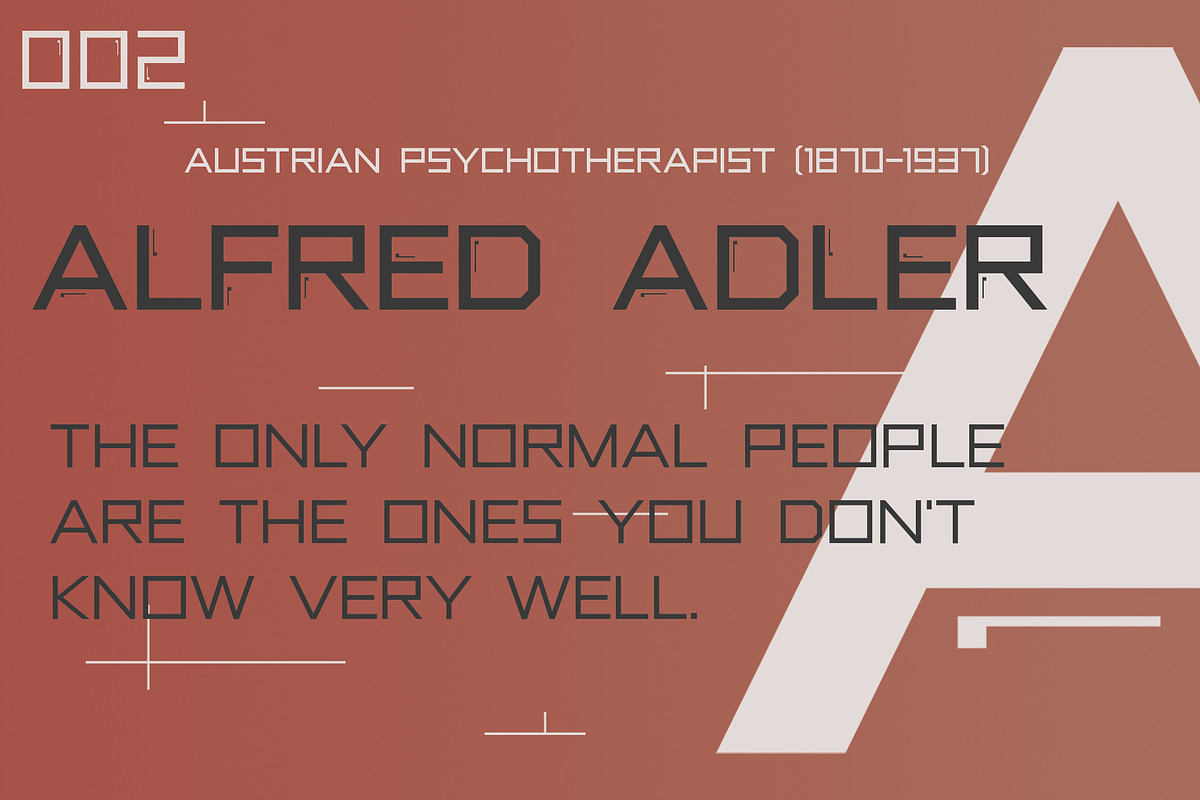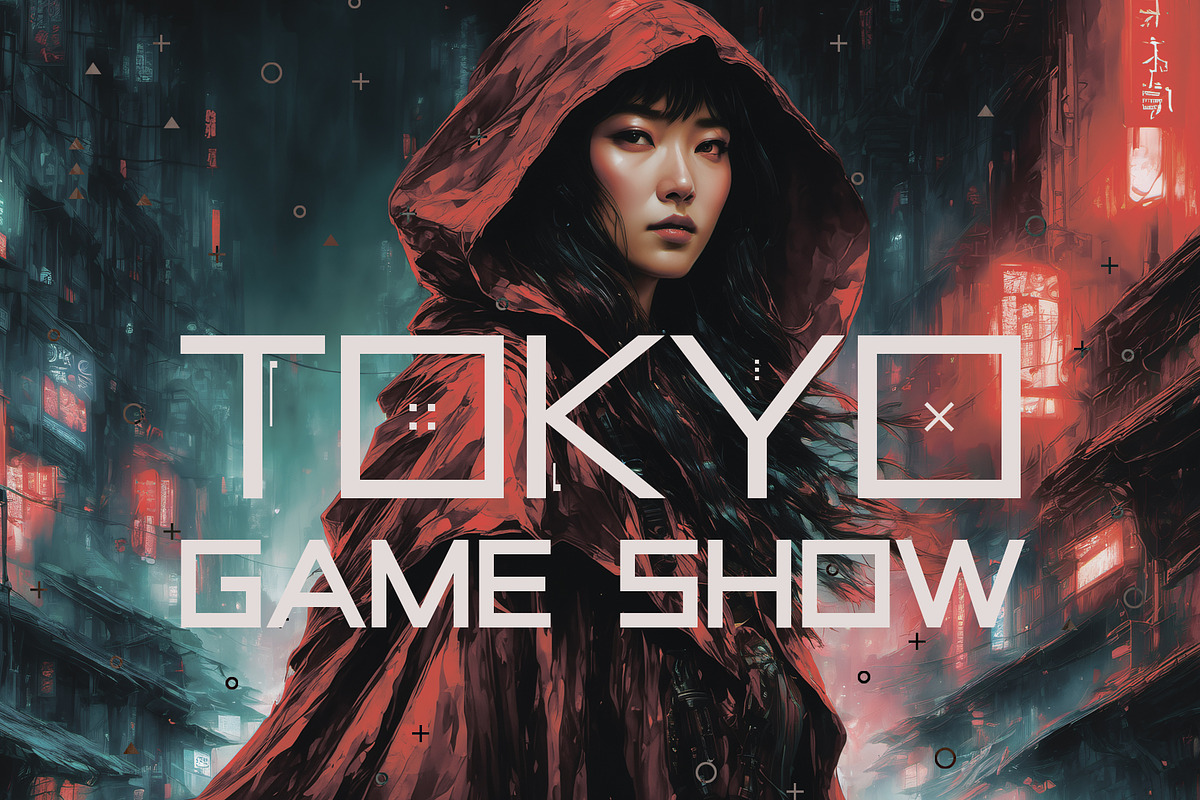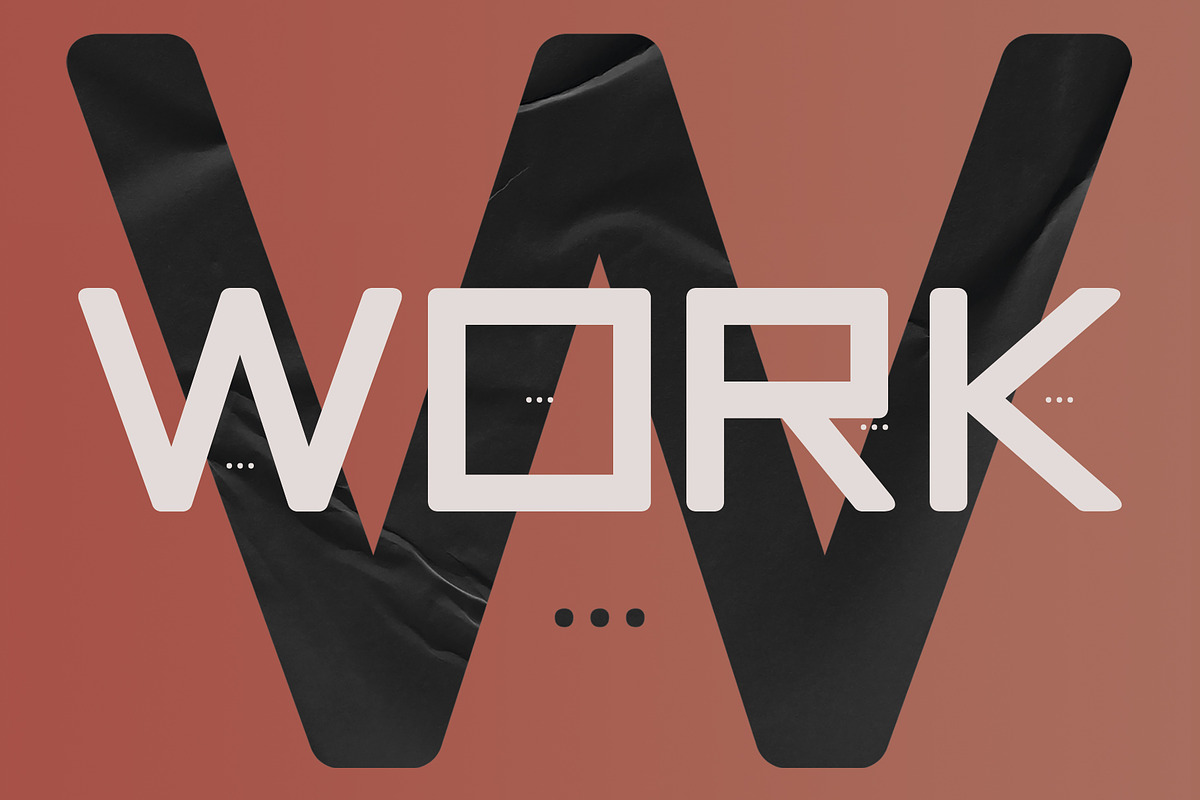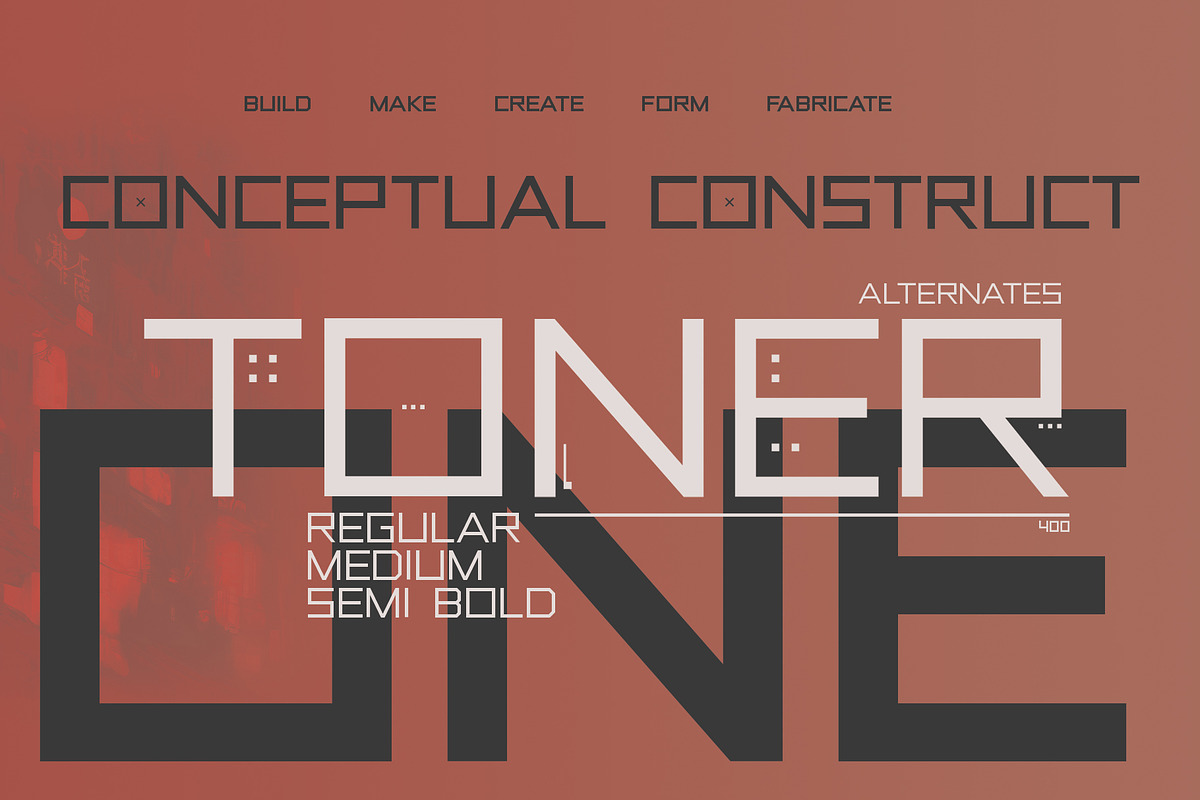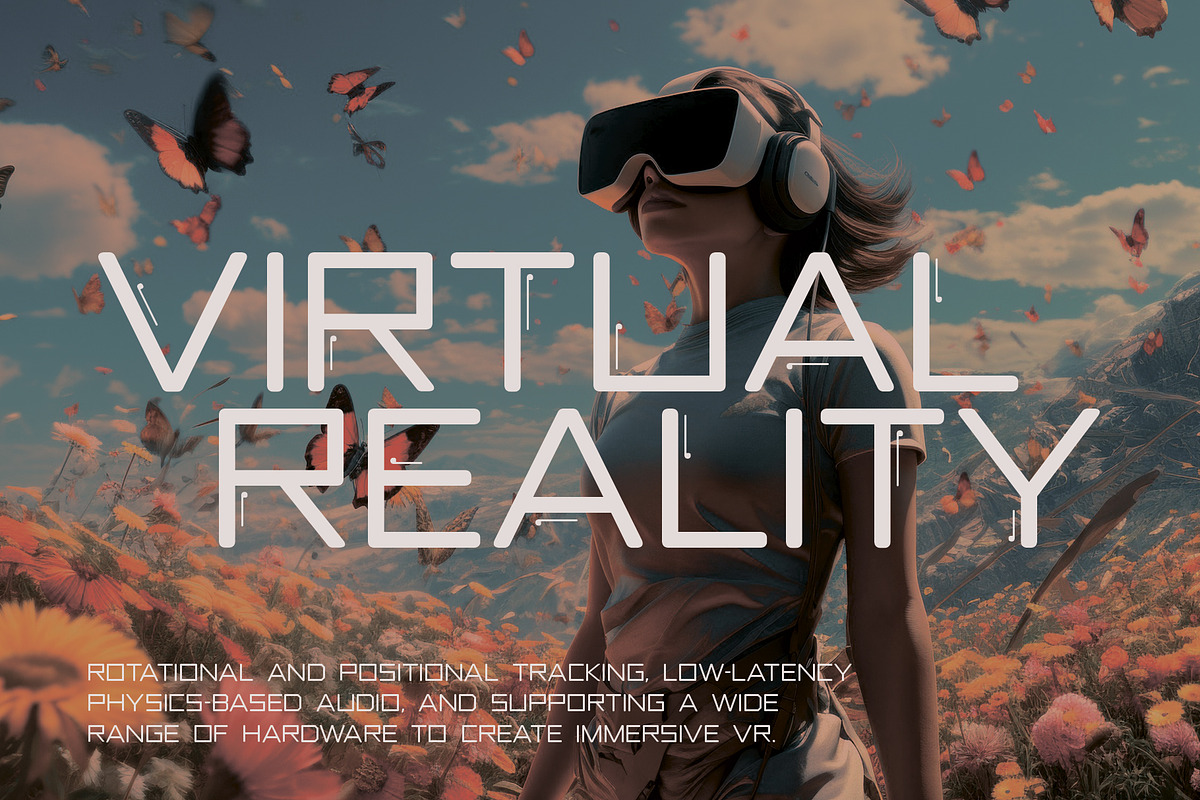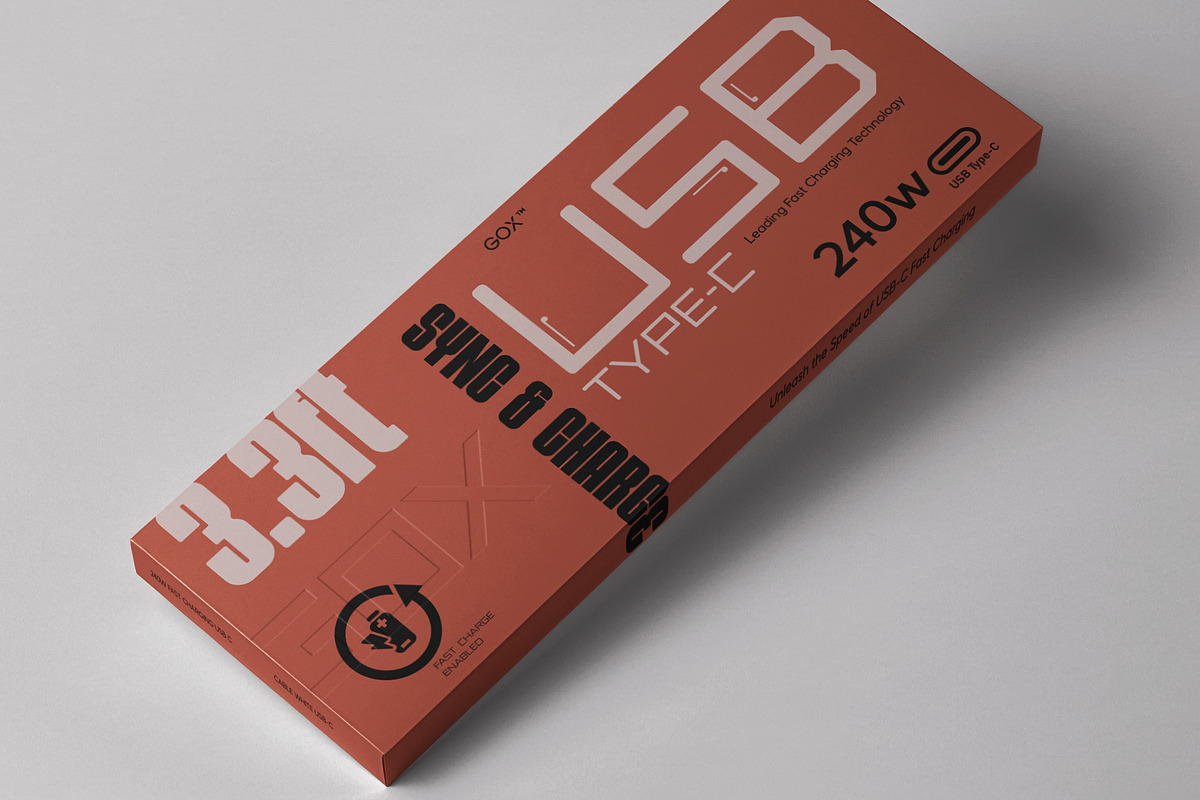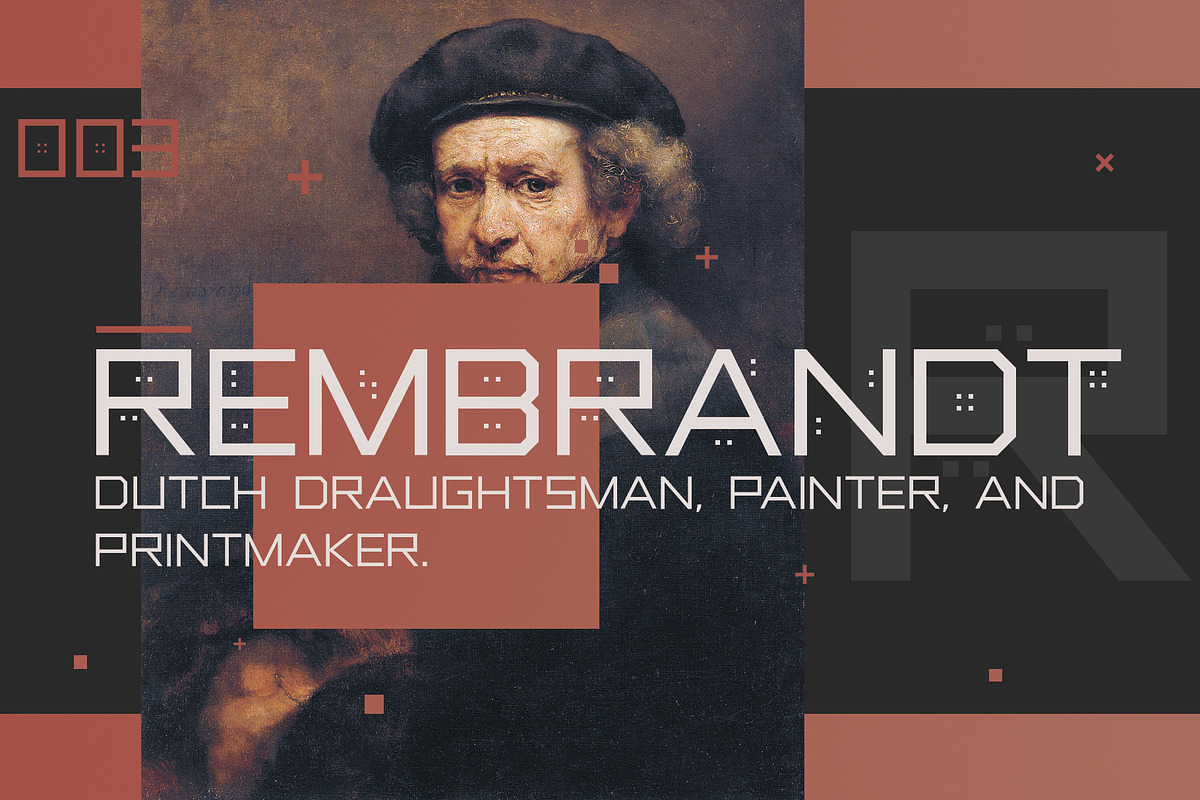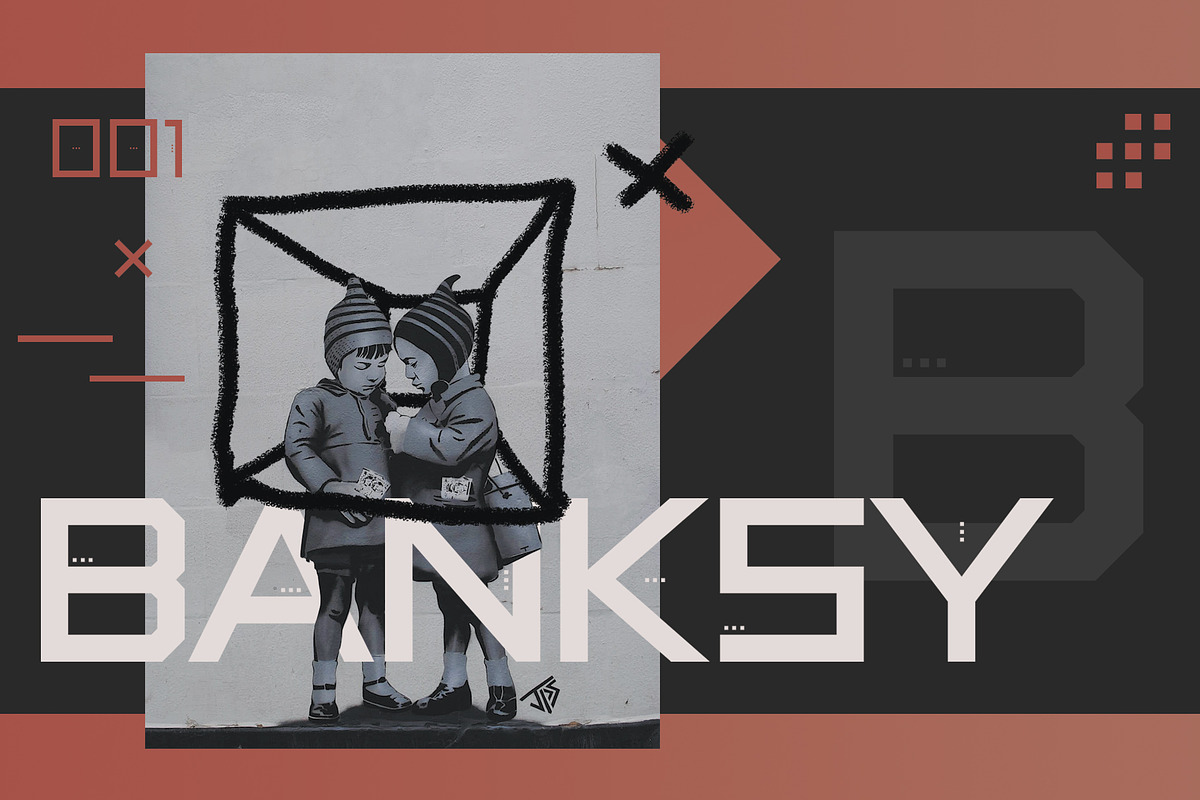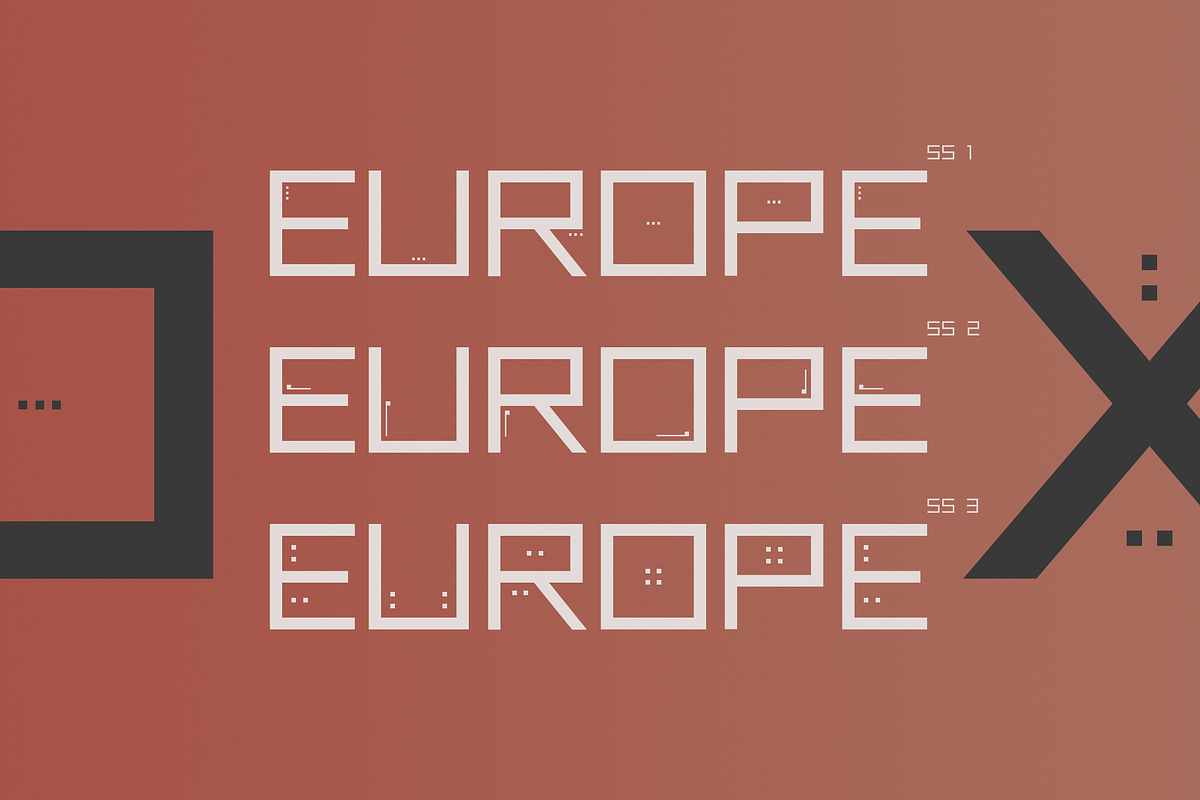
Toner - Display Square Font
If you like a bold and powerful all-caps sans-serif font to make your message stand out, Toner can be the choice to maximize your goals.иThis type family furthers the angular design by styling characters like O, R, P, etc. to be rectangular.
To make it more attractive, Toner also provides opentypes features such as stylistic alternates and a stylistic set.
Best for expressive headlines, posters, billboards and of course brand identities.